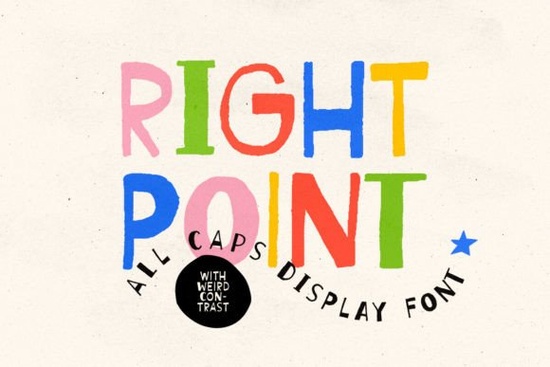
If you’ve been searching for a display font that adds personality without needing to layer effects or textures, Right Point Font might be exactly what your next project needs. It’s an all-caps sans serif with intentional irregularity think uneven strokes, quirky letterforms, and a handmade texture that feels organic rather than polished. That roughness isn’t a flaw; it’s the point. Whether you’re designing book covers, kids’ crafts, posters, or merch for print-on-demand platforms, this font brings visual interest right out of the box.
What kind of projects work best with Right Point?
Because of its bold, slightly offbeat structure, Right Point thrives in contexts where you want to grab attention without being overly sleek or corporate. Think:
- Children’s books or educational materials the playful shapes feel friendly and approachable.
- Merchandise like t-shirts, mugs, or tote bags especially if your brand leans artistic or indie.
- Event posters or social media graphics where standing out matters more than fitting in.
- Book covers for fantasy, poetry, or YA fiction the contrast and texture add depth without extra design work.
It’s not trying to be minimalist or corporate and that’s why it works so well when you need something with character.
Can I mix uppercase and lowercase letters?
Yes and you should. Even though Right Point is technically an all-caps font, the lowercase characters are designed differently from the uppercase ones. Mixing them within a single word (like “rIgHt PoInT”) creates unexpected rhythm and visual texture. Designers who enjoy playing with hierarchy or breaking traditional typography rules will find this especially useful. It’s one of those small details that makes the font feel alive and adaptable.
Does it support languages other than English?
Absolutely. Right Point includes extended Latin characters, so it works for many European languages French, Spanish, German, Portuguese, and more. If you’re creating designs for international audiences or bilingual projects, you won’t need to switch fonts halfway through. That’s a practical bonus not every display font offers.
How does it compare to other display fonts on Creative Fabrica?
Any tips for using Right Point effectively?
Here’s how to get the most out of it without overdoing it:
- Use it sparingly. One headline, one title, one focal word that’s usually enough. Its texture already draws the eye.
- Pair it with simple sans serifs. A clean body font like Helvetica, Montserrat, or even Arial lets Right Point shine without visual competition.
- Don’t force symmetry. The charm is in the imperfections. Avoid aligning everything too rigidly let the letters breathe.
- Try dark backgrounds. The rough edges pop beautifully against deep colors or textured backdrops.
Who is this font NOT for?
If your project demands ultra-clean, corporate, or minimalist aesthetics think annual reports, legal documents, or luxury branding this probably isn’t your go-to. It’s also not ideal for long paragraphs. Stick to headlines, logos, badges, or short phrases where impact matters more than readability over time.
Quick checklist before you download:
- ✅ Do you need a font with strong visual presence?
- ✅ Are you okay with or excited by irregular shapes and handmade texture?
- ✅ Will you use it for titles, covers, merch, or kids’ content?
- ✅ Do you want multi-language support without switching fonts?